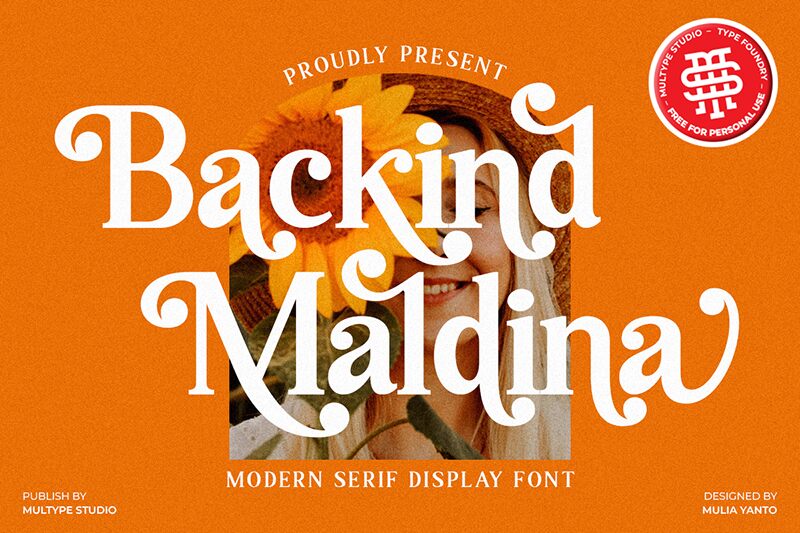
Backind Maldina emerges as a serif font that encapsulates elegance and versatility. Crafted by the skilled hands at Multype Studio, this typeface weaves traditional serif aesthetics with contemporary finesse. Its robust character set, paired with refined serifs and a balanced stroke contrast, exudes a timeless charm that is both inviting and authoritative.
The rich visual texture of Backind Maldina lends itself to an array of creative projects. Whether gracing the pages of a novel, headlining a boutique's branding, or adding sophistication to wedding invitations, its aesthetic appeal is undeniable. The font's crisp legibility makes it an excellent choice for both print and digital mediums.
In summary, Backind Maldina stands out as a multi-purpose typeface with the potential to elevate any design it accompanies. Its classic roots enhanced by modern flair ensure that it will resonate with audiences seeking both readability and character in their typographic experiences.